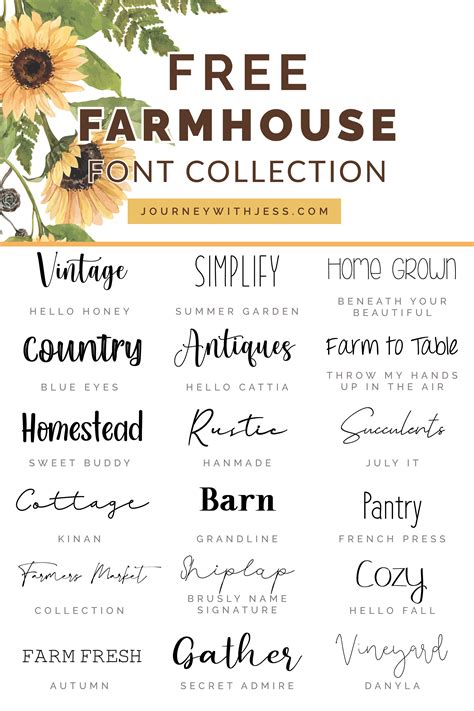
Rustic Charm for Your Designs: Discover the Best Free Rustic Farmhouse Fonts
Are you looking to add a touch of rustic charm to your designs?
Fortunately, there are plenty of free rustic farmhouse fonts available to elevate your designs without sacrificing your budget.
From bold, hand-drawn lettering to classic serif fonts with a rustic twist, these font styles can add a warm, welcoming feel to any project.
One top pick is Bromello, a script font with a natural, handwritten feel that pairs well with vintage graphic elements. Or, for a more modern take on the rustic trend, try Hey August, a sans-serif font with a distressed, farmhouse-inspired texture.
In addition to these favorites, there are countless other free options to choose from. So why not experiment with a few to discover the perfect fit for your next design project?
Overall, incorporating free rustic farmhouse fonts into your designs is an easy and cost-effective way to add charm, personality, and warmth to your work. Give it a try and see the difference it can make for your projects!
Rustic charm is a popular style for designs that evoke feelings of warmth, nostalgia, and a close connection to nature. This style is characterized by its use of natural materials, earthy colors, and vintage-inspired elements. One of the key visual components of rustic charm is typography, which is often showcased using free rustic farmhouse fonts.
The Importance of Choosing the Right Font
When it comes to creating designs with a rustic charm, choosing the right font is crucial. The font you choose can make or break your design and determine whether it successfully conveys the feeling of rustic charm you’re aiming for. With so many free rustic farmhouse fonts available, it can be difficult to know where to start. That’s why we’ve put together this list of the best options out there.
What Makes a Font Rustic?
The term “rustic” can be somewhat subjective when it comes to fonts. However, there are a few visual elements that tend to define rustic typography. These include:
- Irregular letter shapes and spacing
- Worn or distressed texture
- Handwritten or calligraphic style
The Best Free Rustic Farmhouse Fonts
There are countless free rustic farmhouse fonts available, so we’ve narrowed down some of the top options:
| Font Name | Characteristics |
|---|---|
Aileron | Sleek, modern font with rustic-inspired variations |
Bromello | Cursive script font with rustic texture and swashes |
Chunky | Thick, heavy font with worn texture and uppercase letters that resemble woodcut designs |
Debby | Handwritten font with rough texture and whimsical flourishes |
Dosis | Geometric sans serif font with rustic variations |
How to Use Rustic Fonts in Your Designs
Rustic fonts can be used in many different types of designs, including logos, branding materials, packaging, and more. When using these fonts, keep in mind:
- The context of your design
- The overall aesthetic you’re aiming for (e.g., vintage, boho, country)
- The readability of the font at different sizes and on different backgrounds
Incorporating Other Rustic Elements into Your Designs
Typography is just one element of rustic charm – there are many other visual components you can incorporate into your designs to enhance this style. These may include:
- Natural textures like wood, linen, or burlap
- Earthy colors like sage, rust, and mustard yellow
- Vintage or antique-inspired illustrations or graphics
The Pitfalls of Using Rustic Fonts
While rustic fonts can add a lot of character to your designs, there are a few potential pitfalls to be aware of. For example:
- Some rustic fonts can be difficult to read, particularly at smaller sizes
- Using too many rustic elements in a design can make it look cluttered or overwhelming
- If not paired with the right elements and designs, rustic fonts can appear outdated or cliché
Closing Thoughts
Rustic charm is a beloved design style that can evoke feelings of warmth, comfort, and nostalgia. When incorporating rustic typography into your designs, choosing the right font is key. Consider the characteristics of rustic fonts, as well as the context and overall aesthetic of your design. With the right choices and balance, rustic typography can add just the right amount of character and charm to your project.
With the right font, you can create stunning graphics, invitations, and more that evoke a cozy, charming atmosphere. Whether you're looking to design for a wedding, a restaurant, or any other project that needs a rustic touch, these fonts can add just the right amount of charm.